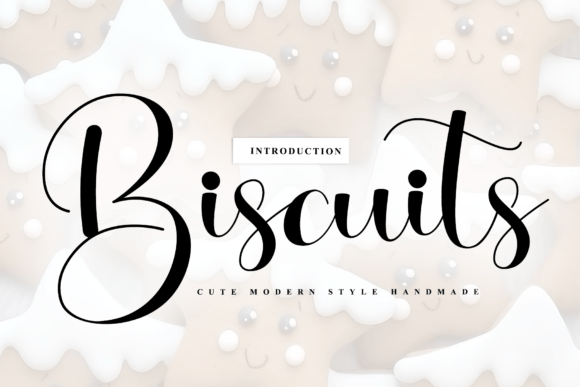
The Biscuits Font: A Timeless Handwritten Treasure
I’ll never forget the moment I stumbled upon the Biscuits font. I was working on a branding project for a new bakery, and I was struggling to find the perfect font to capture the warm, inviting spirit of their brand. That’s when I discovered Biscuits – a lovely, timeless handwritten font that instantly stole my heart. In this article, I’ll share my experience with Biscuits, and explore its features, uses, and alternatives.
My Love Affair with Biscuits
The Biscuits font is a true gem. Its unique, hand-crafted letters are full of character and personality, making it the perfect choice for creating eye-catching logos, branding, and quotes. Here are just a few things I love about Biscuits:
- ✨ Unique and beautiful letterforms that add a touch of elegance to any design
- 💫 Supports OpenType features, glyphs, and stylistic alternates for added versatility
- 🎨 Perfect for a wide range of design applications, from logos and branding to quotes and social media graphics
A Few Quirks to Consider
While Biscuits is an amazing font, it’s not perfect. Here are a few quirks to keep in mind:
- 🤔 Some users may find the font a bit too ornate for certain design applications
- ⚠️ Limited availability of certain special characters and glyphs
The Story Behind Biscuits
The Biscuits font was designed by a talented type designer who wanted to create a font that would capture the warmth and elegance of handwritten script. Inspired by traditional calligraphy and lettering techniques, Biscuits is a true masterpiece that showcases the beauty of handwritten typography.
| Font Name | Biscuits Font |
| Author | Sansana |
- A: The Biscuits font is a lovely, timeless handwritten font that’s perfect for creating eye-catching logos, branding, and quotes.
- Q: Is the Biscuits font suitable for body text?
- A: While Biscuits is a beautiful font, it’s best suited for headlines, titles, and short paragraphs. For body text, you may want to choose a more legible font.